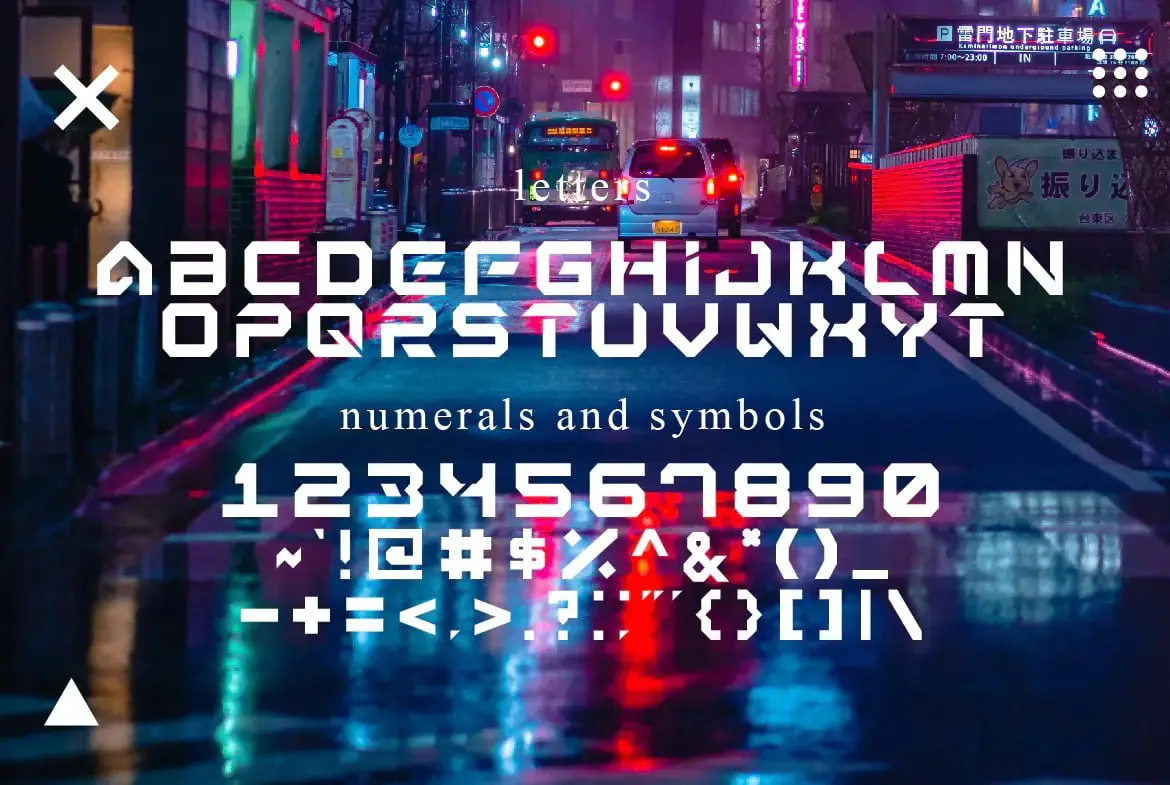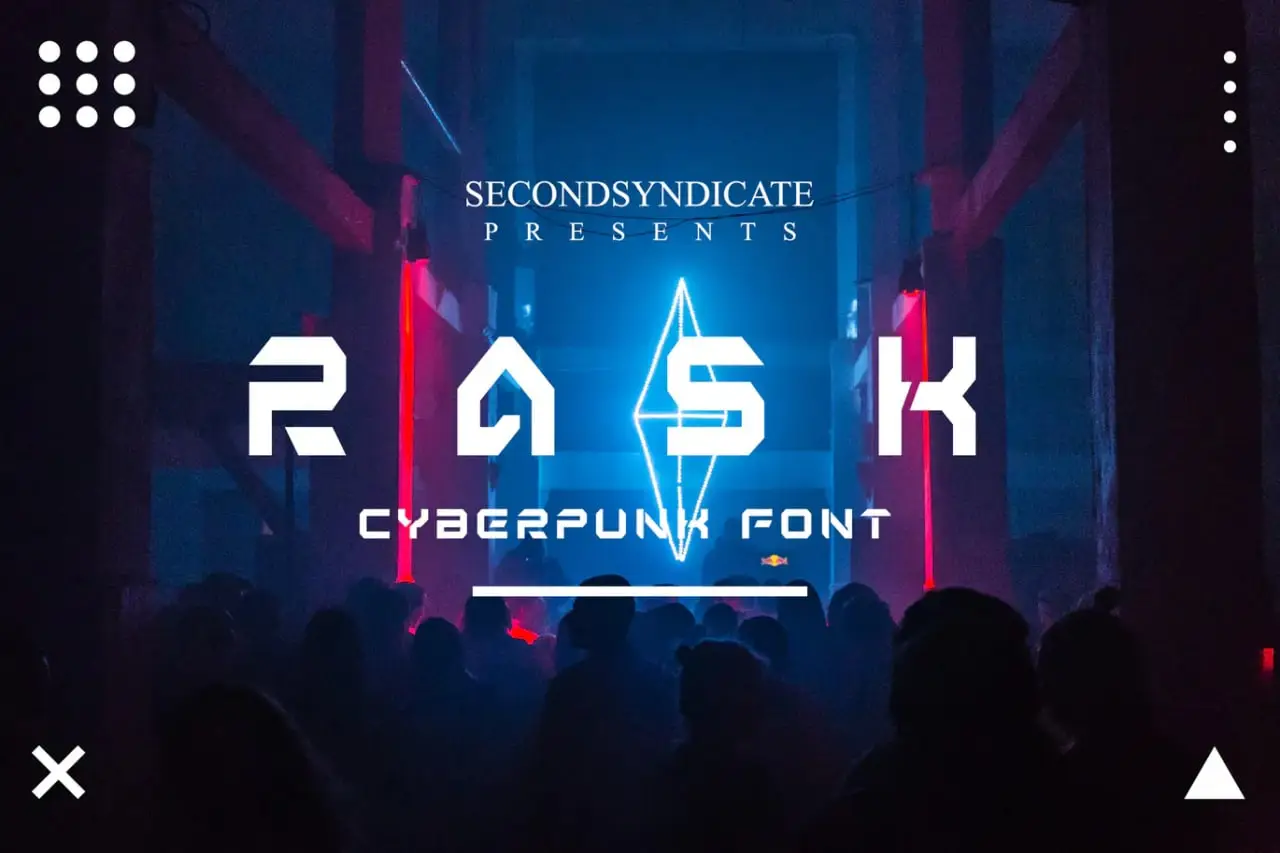
Secondsyndicate Rask Cyberpunk Font
The Secondsyndicate Rask Cyberpunk Font is a modern typeface that captures the essence of the cyberpunk aesthetic. With its sleek lines and futuristic design, this font is perfect for projects that require a bold and edgy look.
• Unique cyberpunk-inspired design
• Includes numerals and punctuation
This font is ideal for branding, logos, web design, and print materials. Its distinctive style makes it a great choice for creating eye-catching titles and headlines.